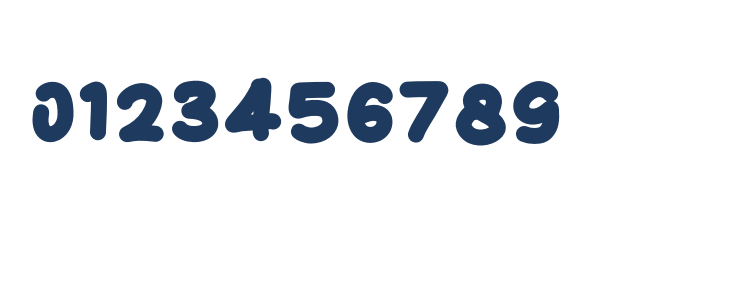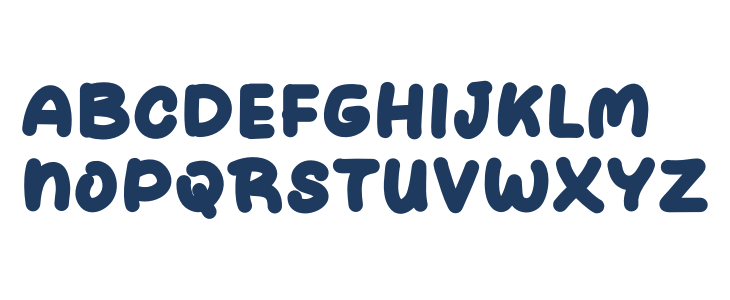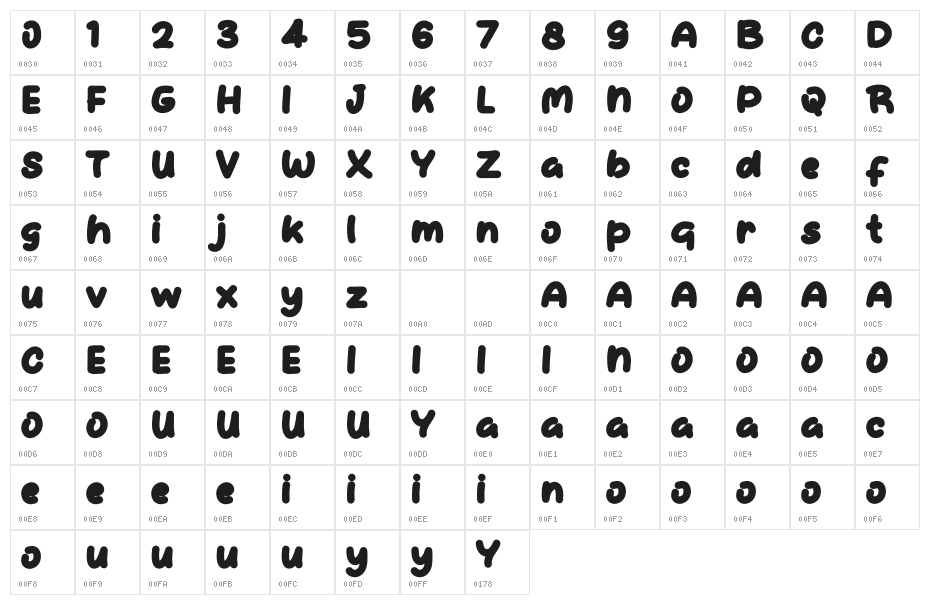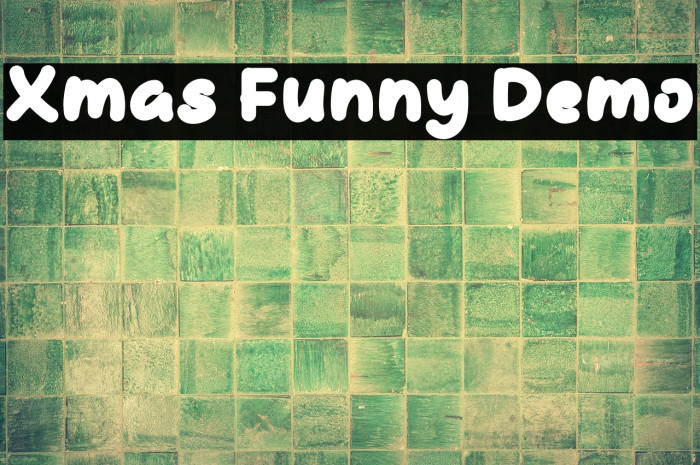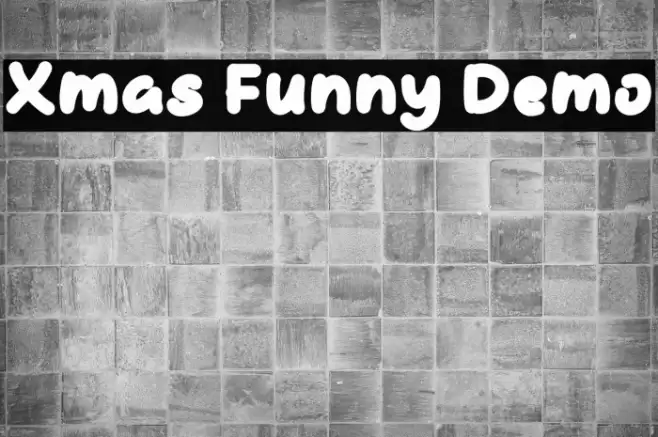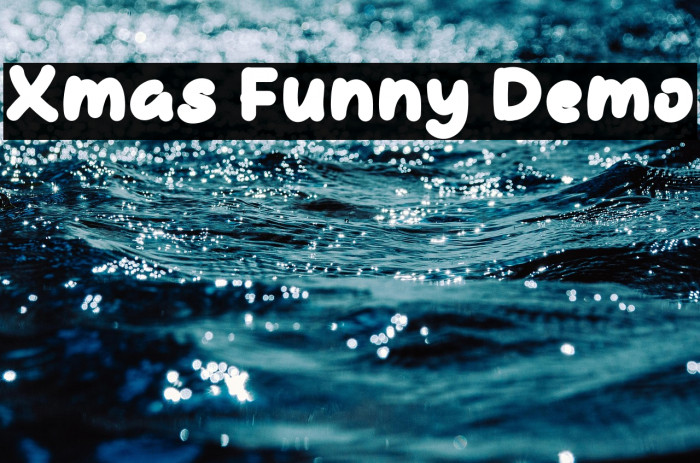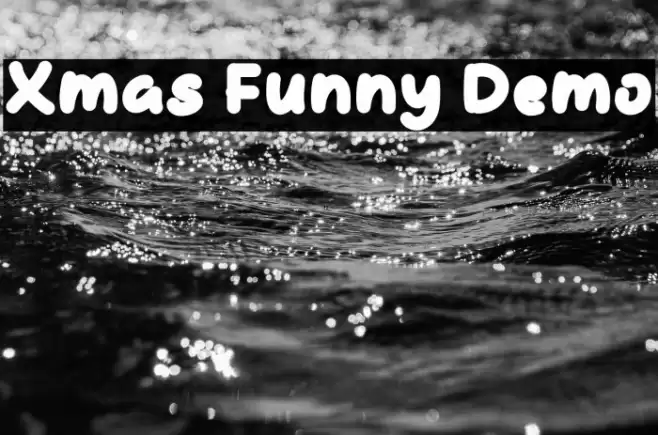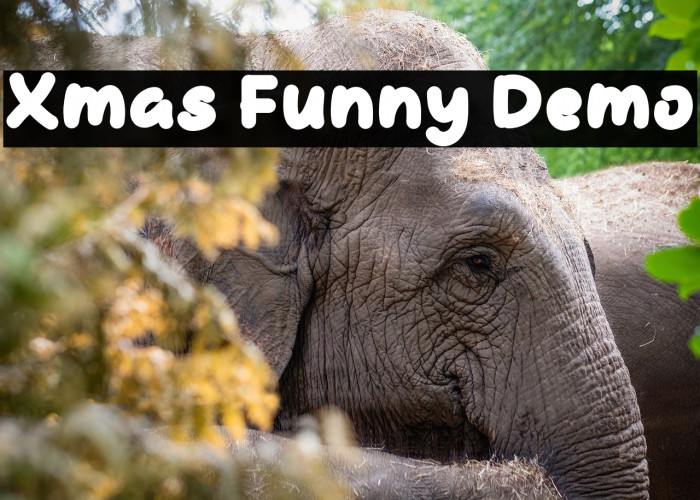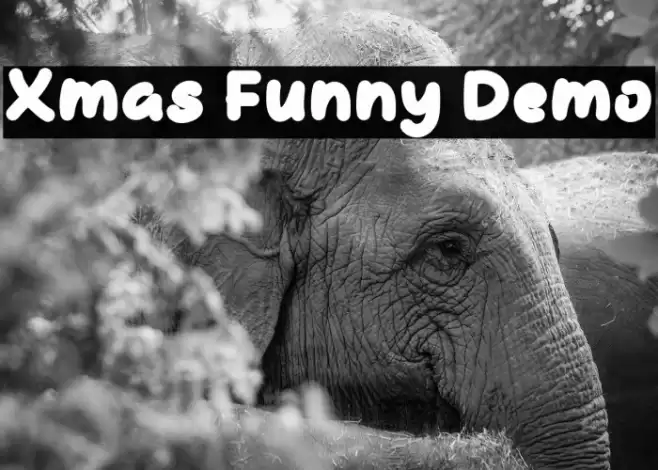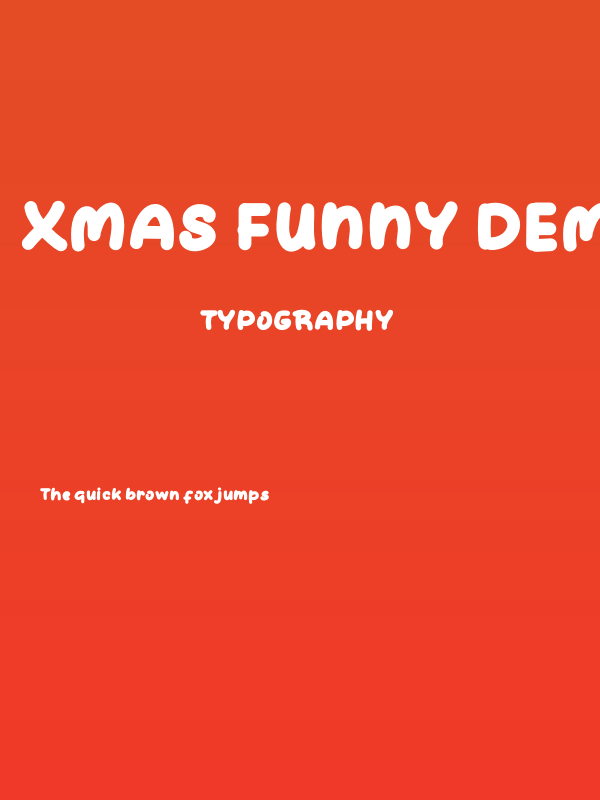
Xmas Funny Demo Font
Xmas Funny Demo Description
| Overall Style | Playful, Decorative, Hand-drawn |
| Use Case | Headlines, Posters, Greeting cards, Children's materials |
| Proposed Projects | Holiday cards, children's books, party invitations, playful branding, posters. |